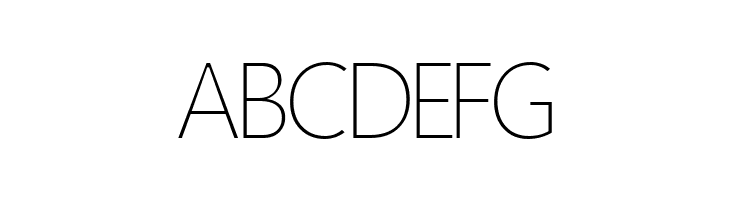
( This is Homizio Nova, a sans-serif font designed by Alvaro Thomaz. )
A sleek, modern font with thin lines and a minimalist design.
A bold, playful font with wavy, rounded characters.
A bold, italic, and playful font with a handwritten feel.
A playful, handwritten-style font with smooth, flowing curves and a casual feel.
A bold, distressed font with a rugged, vintage appearance.
A bold, playful font with a whimsical and slightly gothic style.
An elegant script font with flowing, interconnected characters and bold uppercase letters.
A bold, rounded font with a modern and playful aesthetic.
A bold, rounded font with a playful and retro vibe.
A bold, textured font with a speckled pattern and strong presence.
A bold, decorative font with a houndstooth pattern.
A geometric, futuristic font with bold, angular lines and a modern aesthetic.
A geometric, futuristic font with bold, interconnected lines and architectural aesthetics.
A bold, geometric font with an industrial and architectural style.
A bold, italicized font with a geometric and angular design.
A modern, angular italic font with a geometric and architectural style.
A bold, playful, hand-drawn font with a cartoon-like, textured appearance.
A bold, hand-drawn font with rough, energetic strokes.
A bold, angular blackletter-inspired font with a dramatic and authoritative style.
A bold, decorative font with gothic influences and intricate details.
A bold, three-dimensional font with strong shadow effects and geometric design.